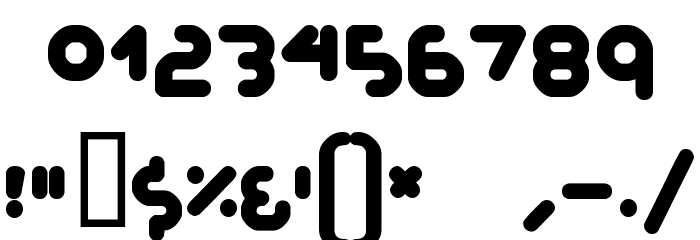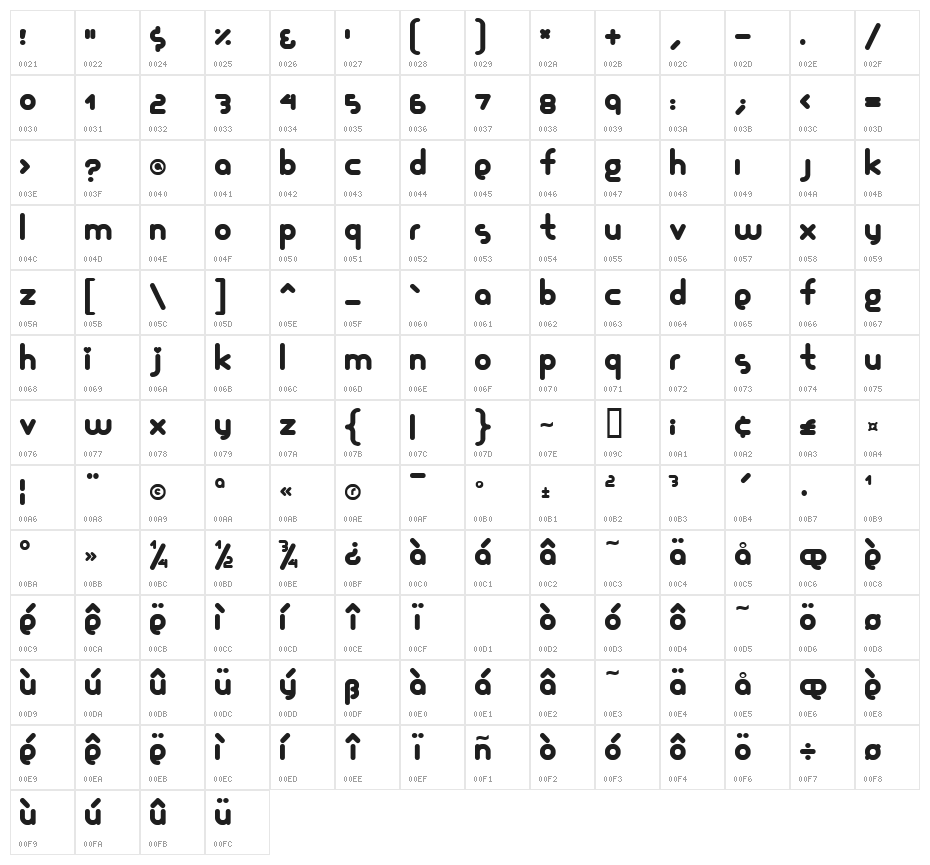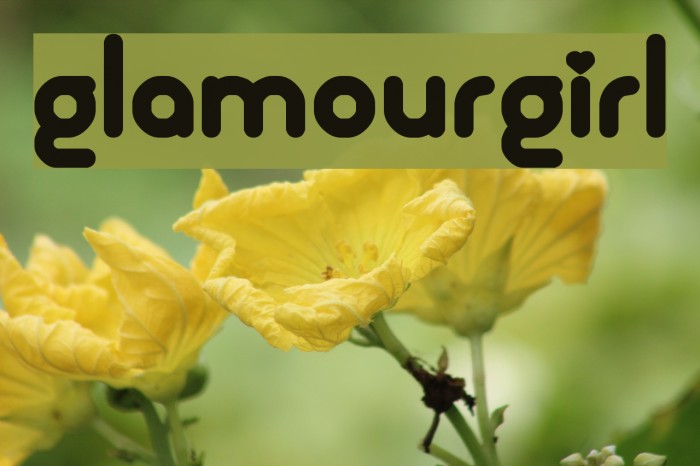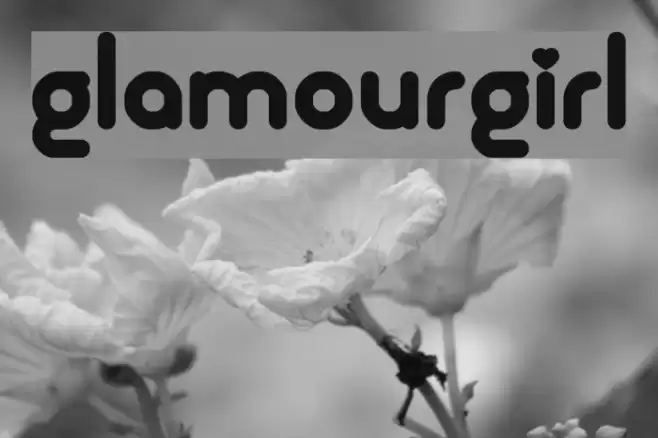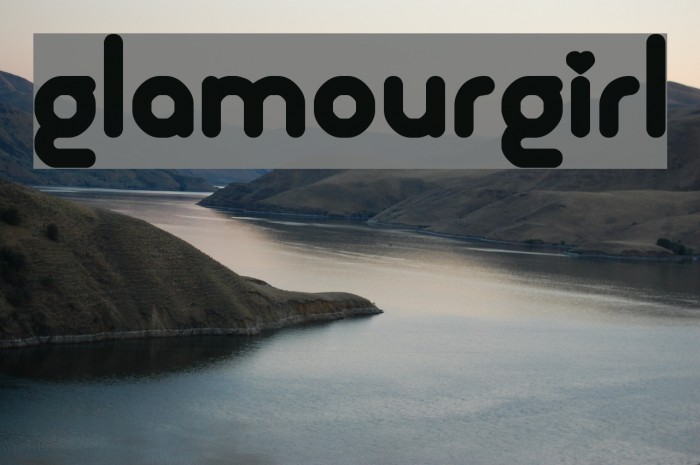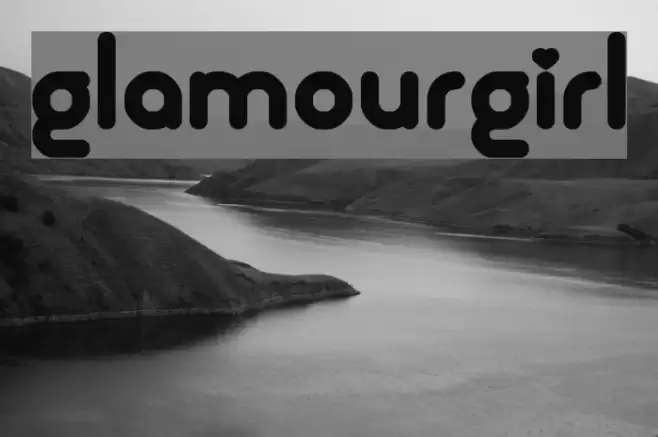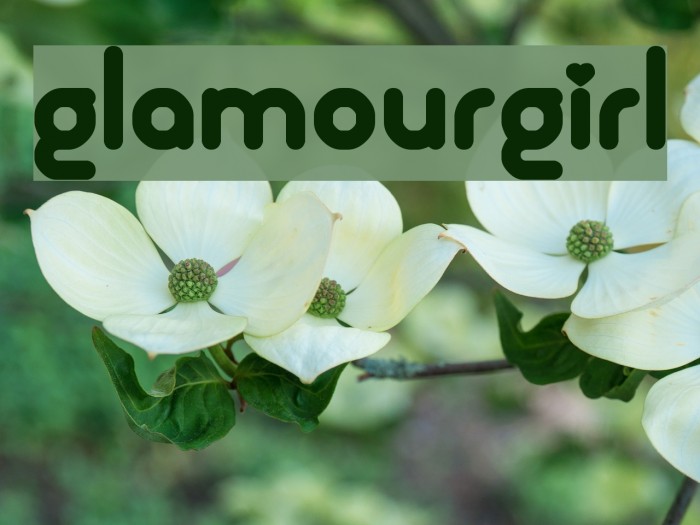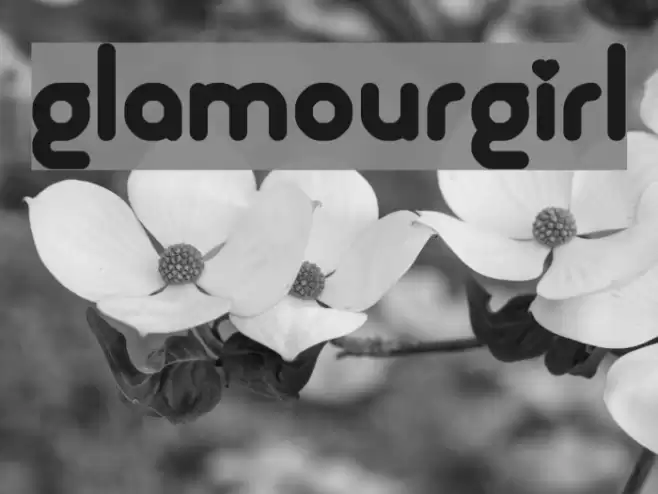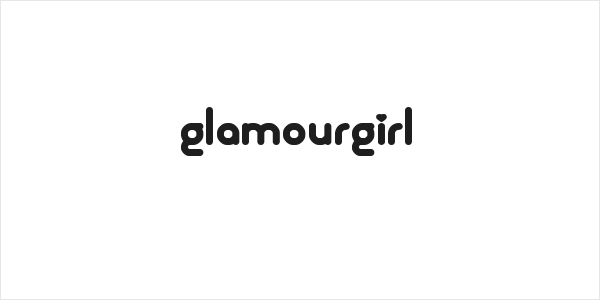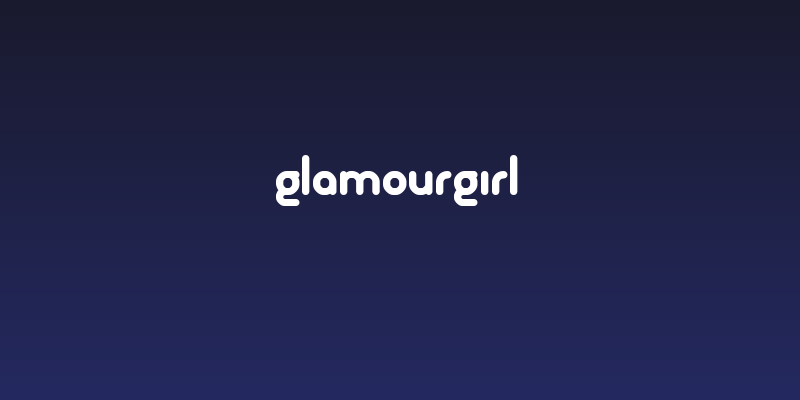
Glamourgirl Font
Glamourgirl Description
This playful and rounded font features a bold and friendly appearance, characterized by its thick, uniform strokes and smooth curves. The letters have a consistent width, creating a harmonious and balanced look. The font includes unique elements, such as heart-shaped dots on the lowercase 'i' and 'j', adding a whimsical touch. The numerals and special characters maintain the same rounded style, ensuring cohesion across all elements. Its simplicity and charm make it suitable for a variety of creative projects.
| Proposed Projects | Ideal for children's books, playful branding, greeting cards, and social media graphics. |